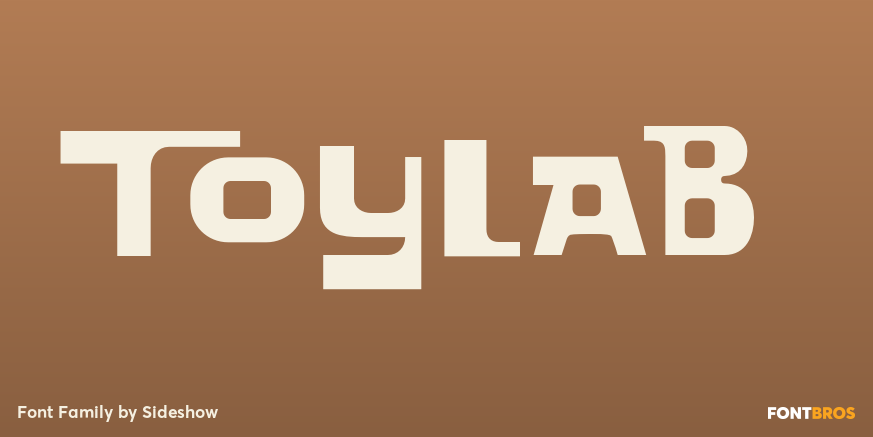
Toylab
About Toylab
This font was originally created by talented illustrator and lettering artist Molly Z for ToyLab, an actual wacky workshop where kids invent new toys using old toy parts. These letterforms were designed to evoke play and fun and to be used in the most…